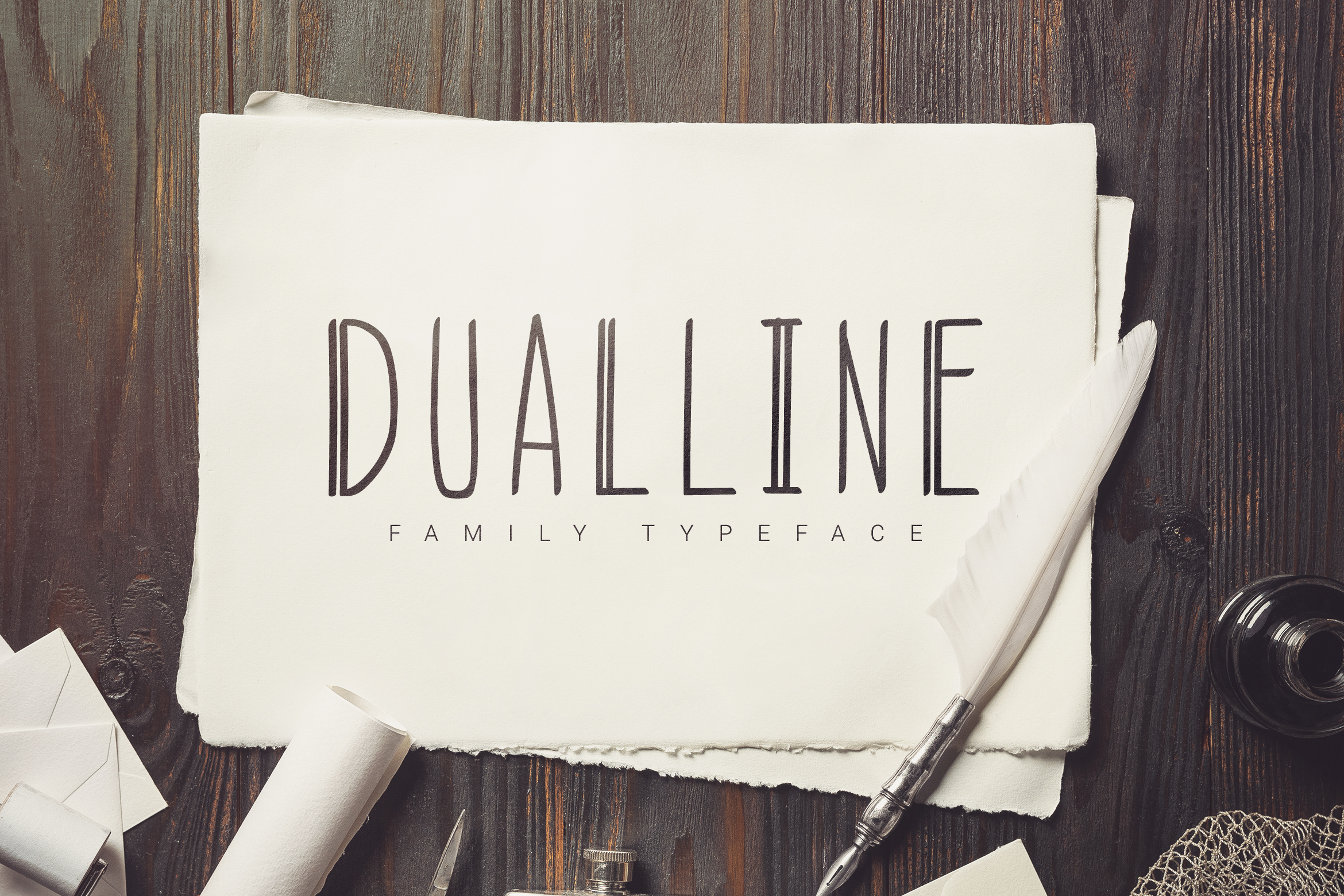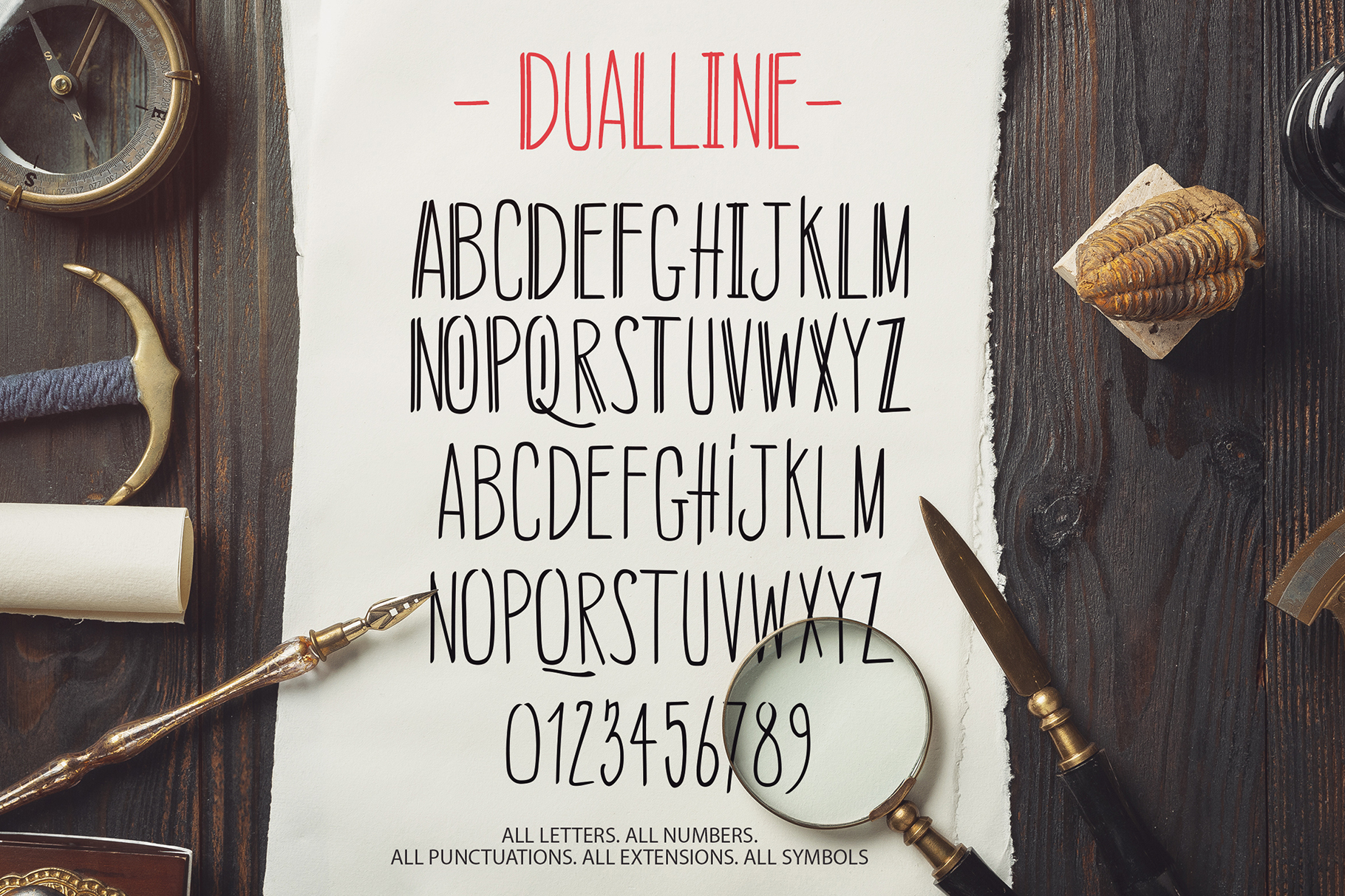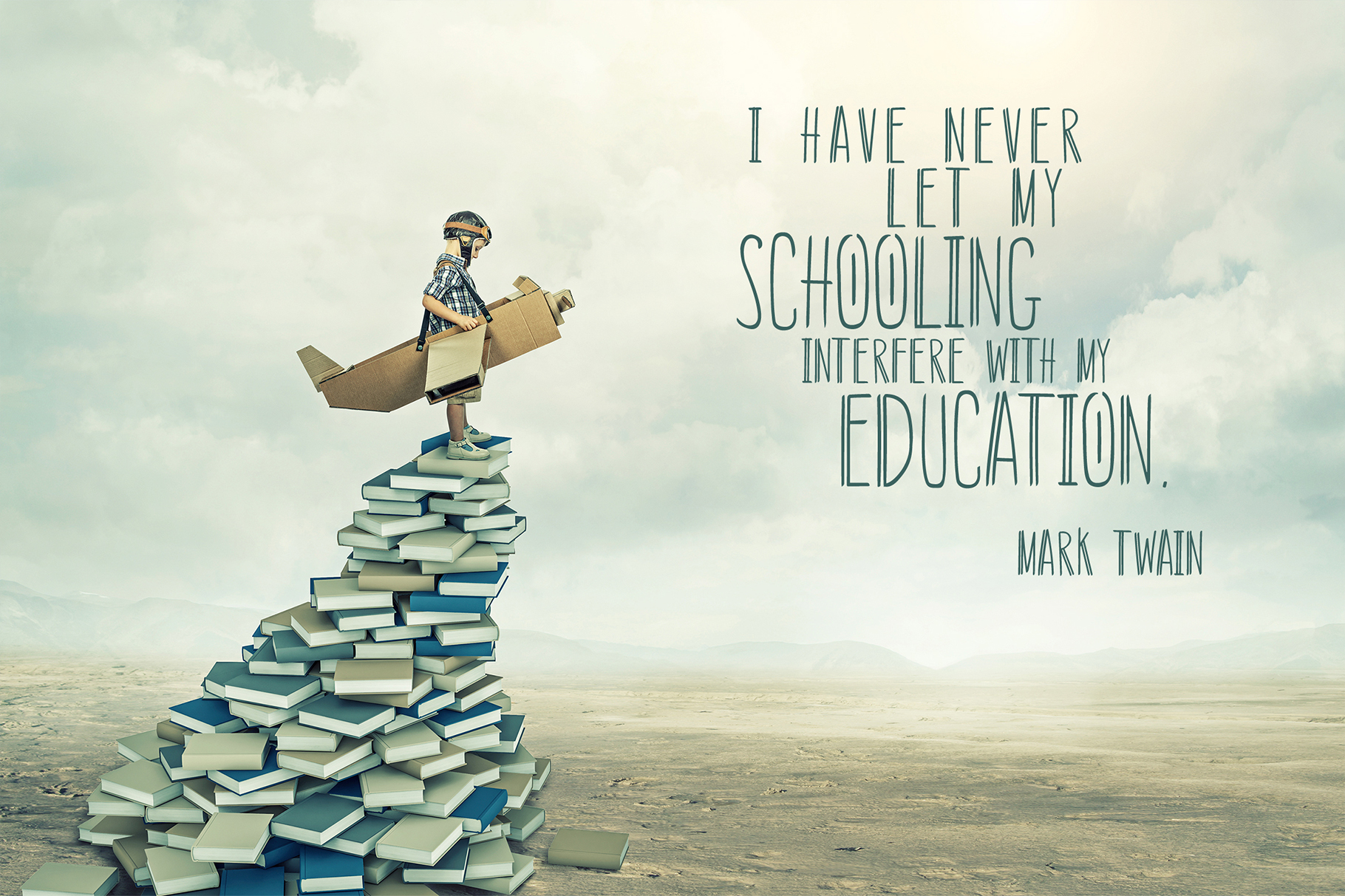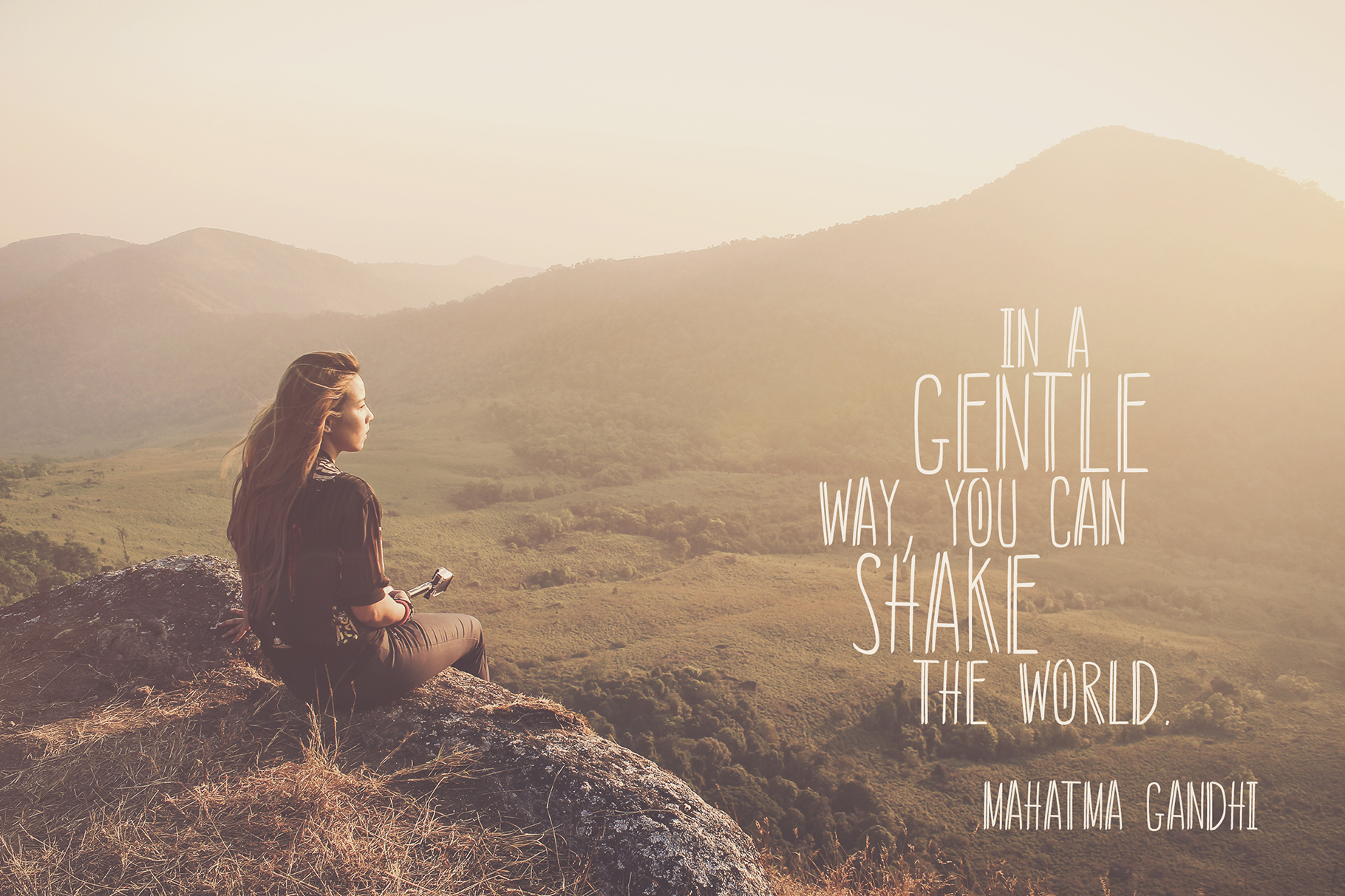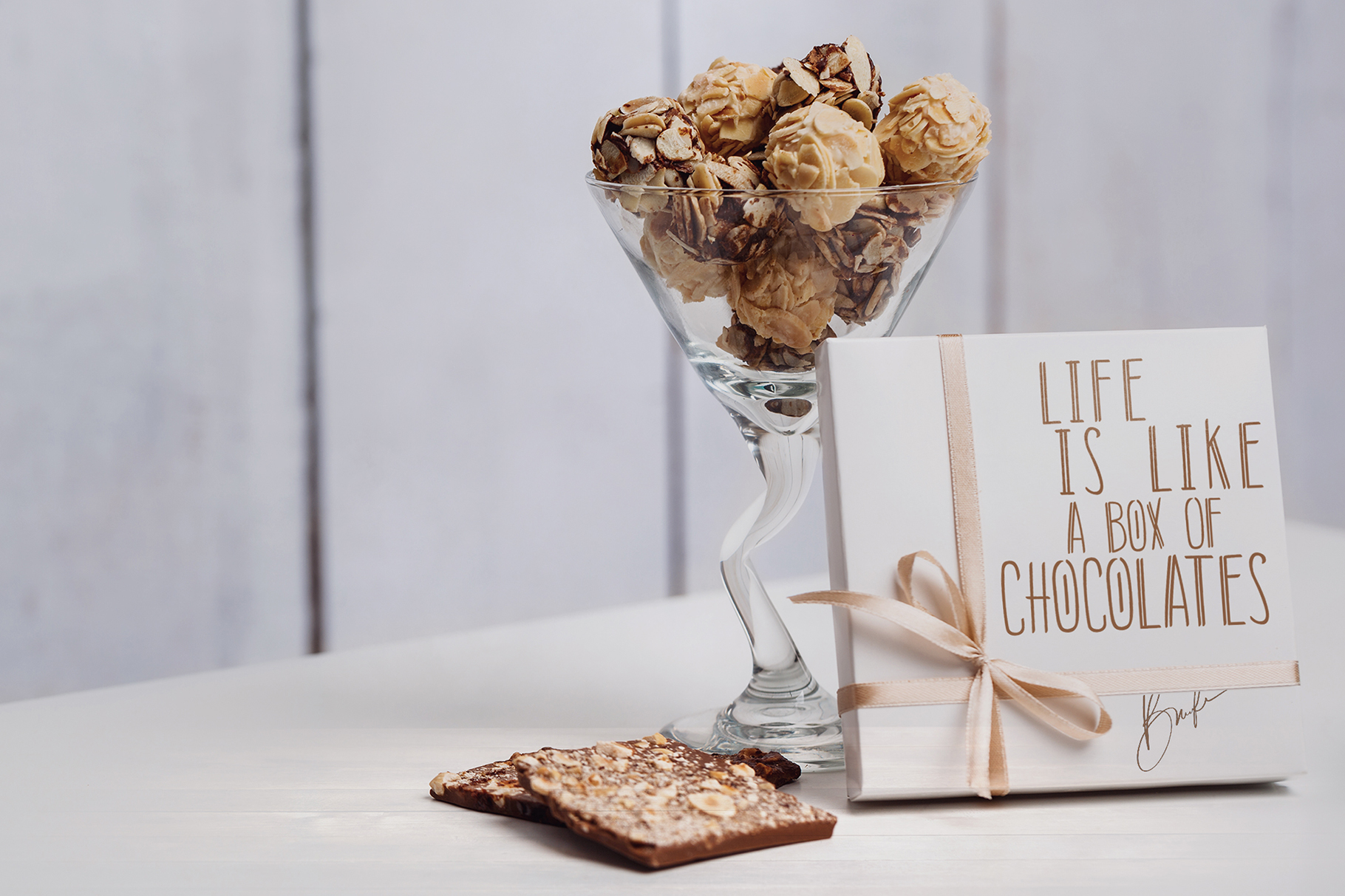
The Dualline Typography is a handwritten font. A good option to achieve an original and modern appearance to your designs.
- All Uppercase
- Flat, Italic & Elongate Versions
Dualline